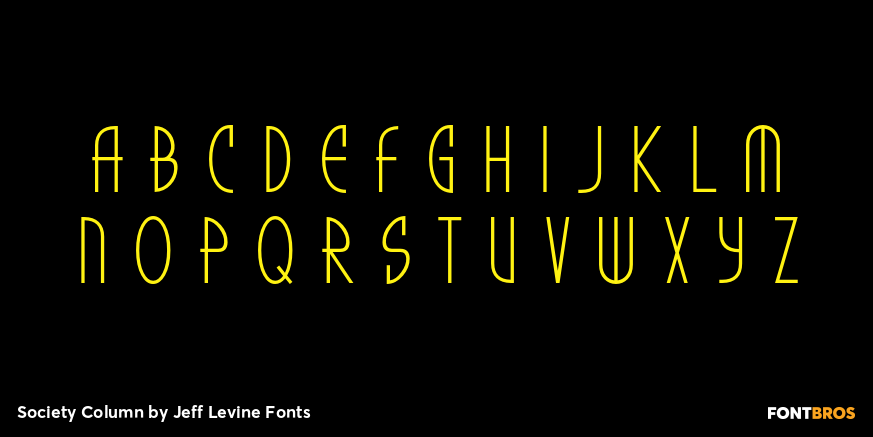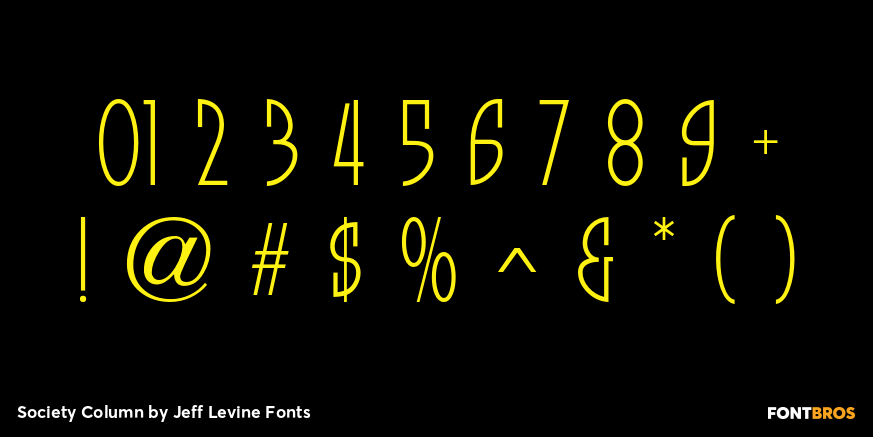
Society Column
The title card for the 1938 screwball comedy 'Four's a Crowd' (starring Errol Flynn, Olivia de Havilland and Rosalind Russell) offered a classic, thin Art Deco type design with stylized letter forms.
This is the basis for Society Column JNL; which derives its name from the newspaper columns popularized in that era detailing the whereabouts of the 'upper crust' of society.